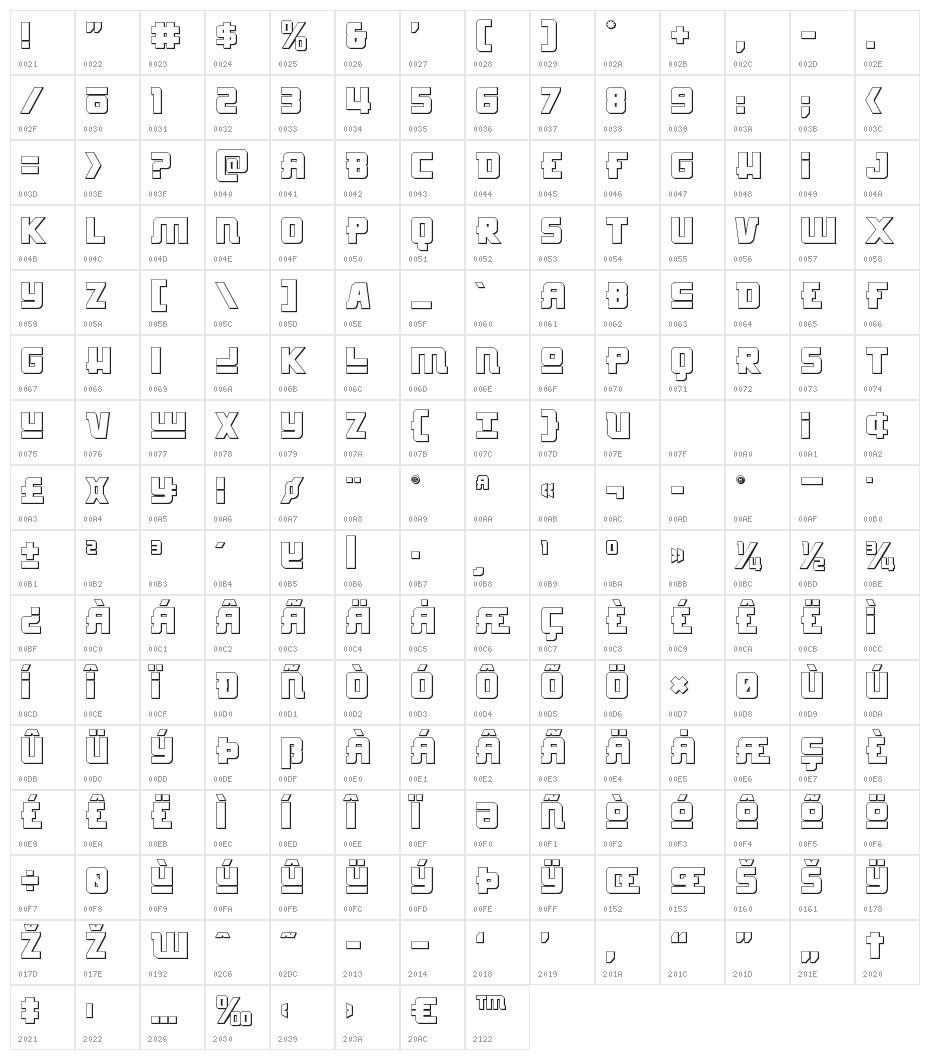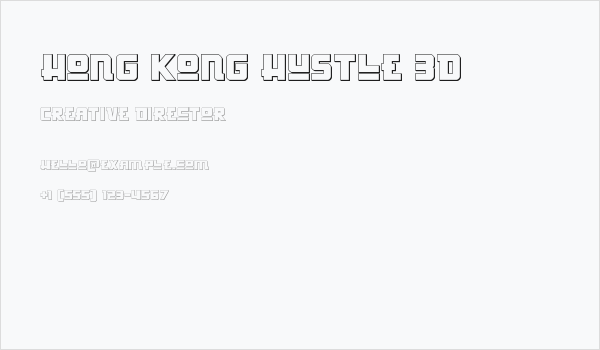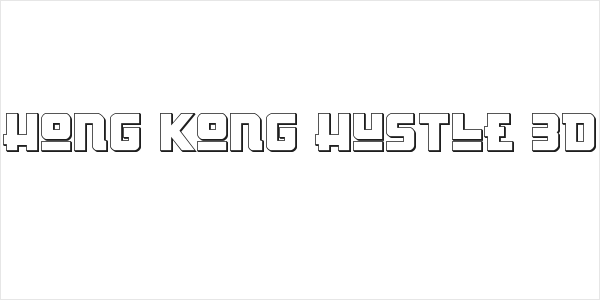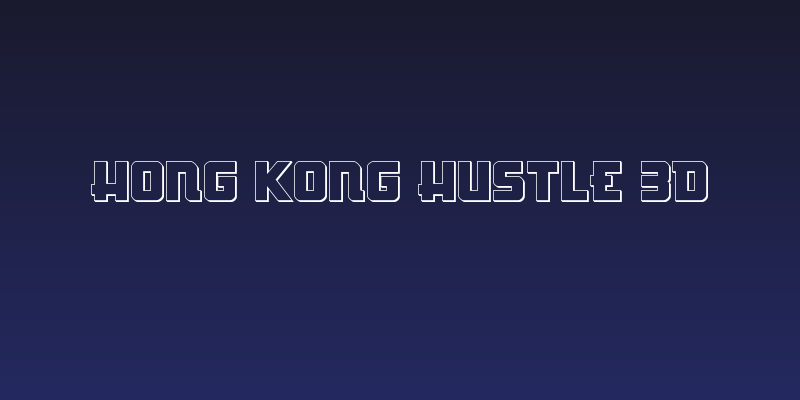
Hong Kong Hustle 3D Font
Hong Kong Hustle 3D Description
This font features a bold, three-dimensional style with a futuristic and urban aesthetic. Each character is outlined with a thick border, giving it a strong presence and a sense of depth. The geometric shapes and blocky design elements contribute to its modern and edgy look. The uppercase and lowercase letters maintain a consistent style, with angular lines and sharp corners. Numbers and special characters are designed to match the overall theme, ensuring uniformity across all glyphs. This font is ideal for projects that require a standout, eye-catching typeface.
| Proposed Projects | Ideal for video game titles, movie posters, urban-themed branding, and futuristic designs. |